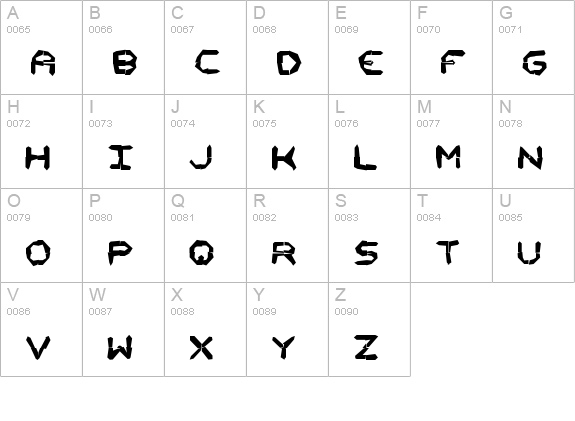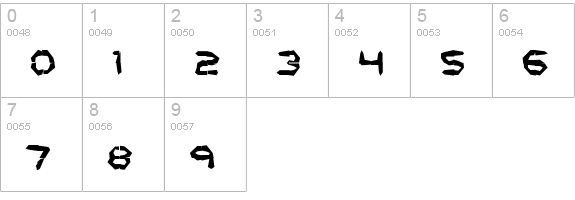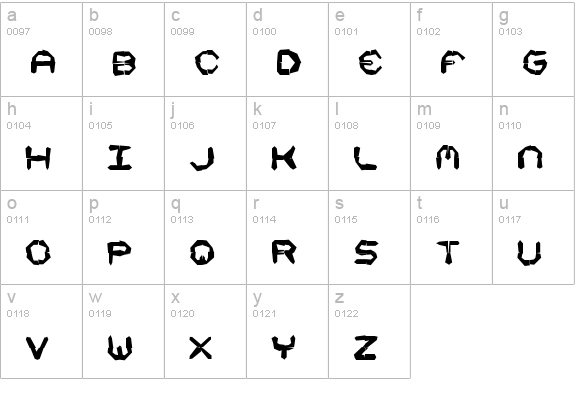
Mishmash 4x4i BRK font is a unique and eye-catching typeface that blends a playful design with a modern twist. Its quirky 4x4i style gives off a fun and dynamic vibe, making it perfect for a variety of creative projects. This font is sure to stand out and grab attention with its bold and unconventional look. The best part? Mishmash 4x4i BRK font is completely free to download at FontsMarket.com. Whether you're designing posters, logos, or social media graphics, this font will add a touch of personality and charm to your work. Don't miss out on the opportunity to enhance your designs with this one-of-a-kind typeface. Download Mishmash 4x4i BRK font today and let your creativity shine!